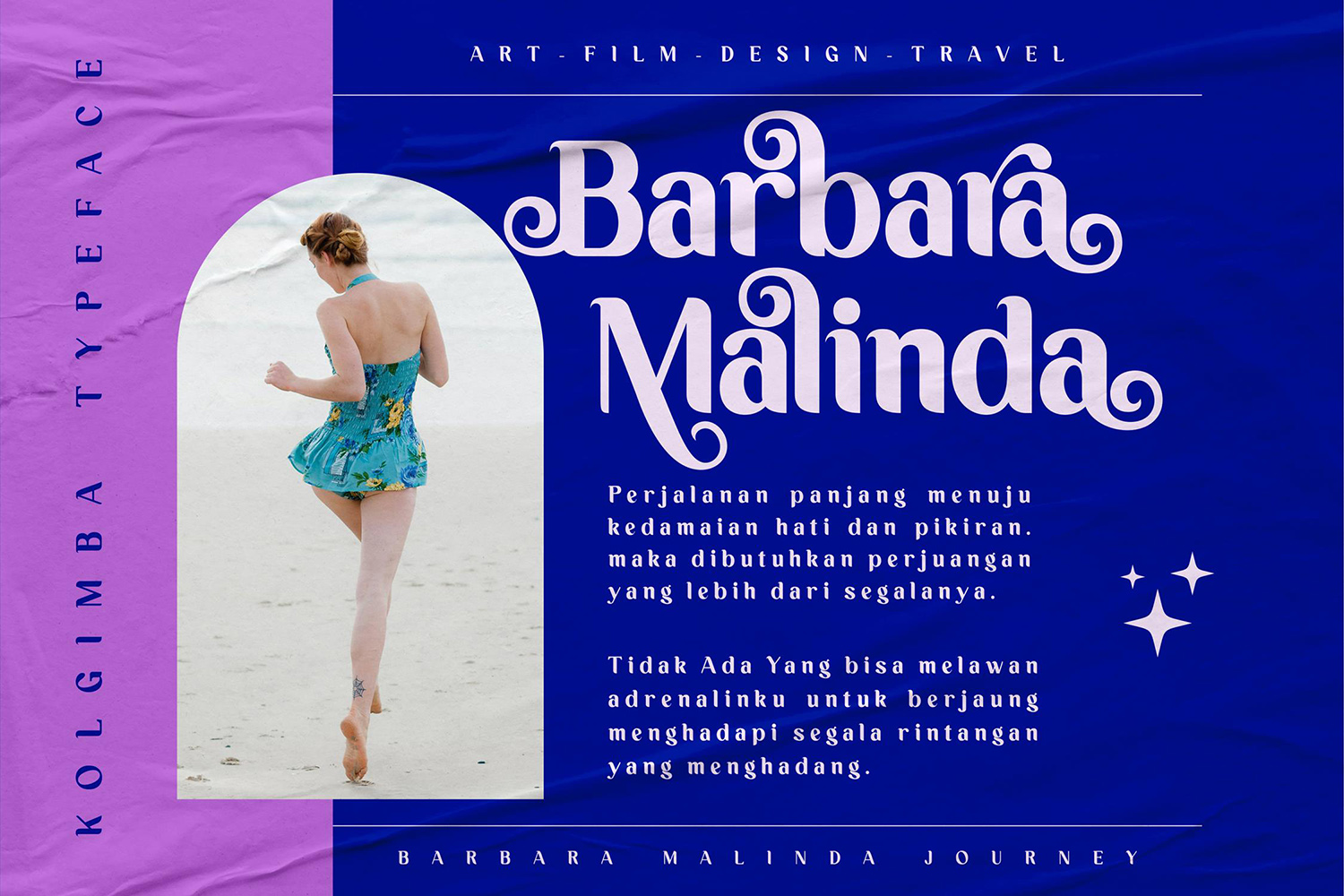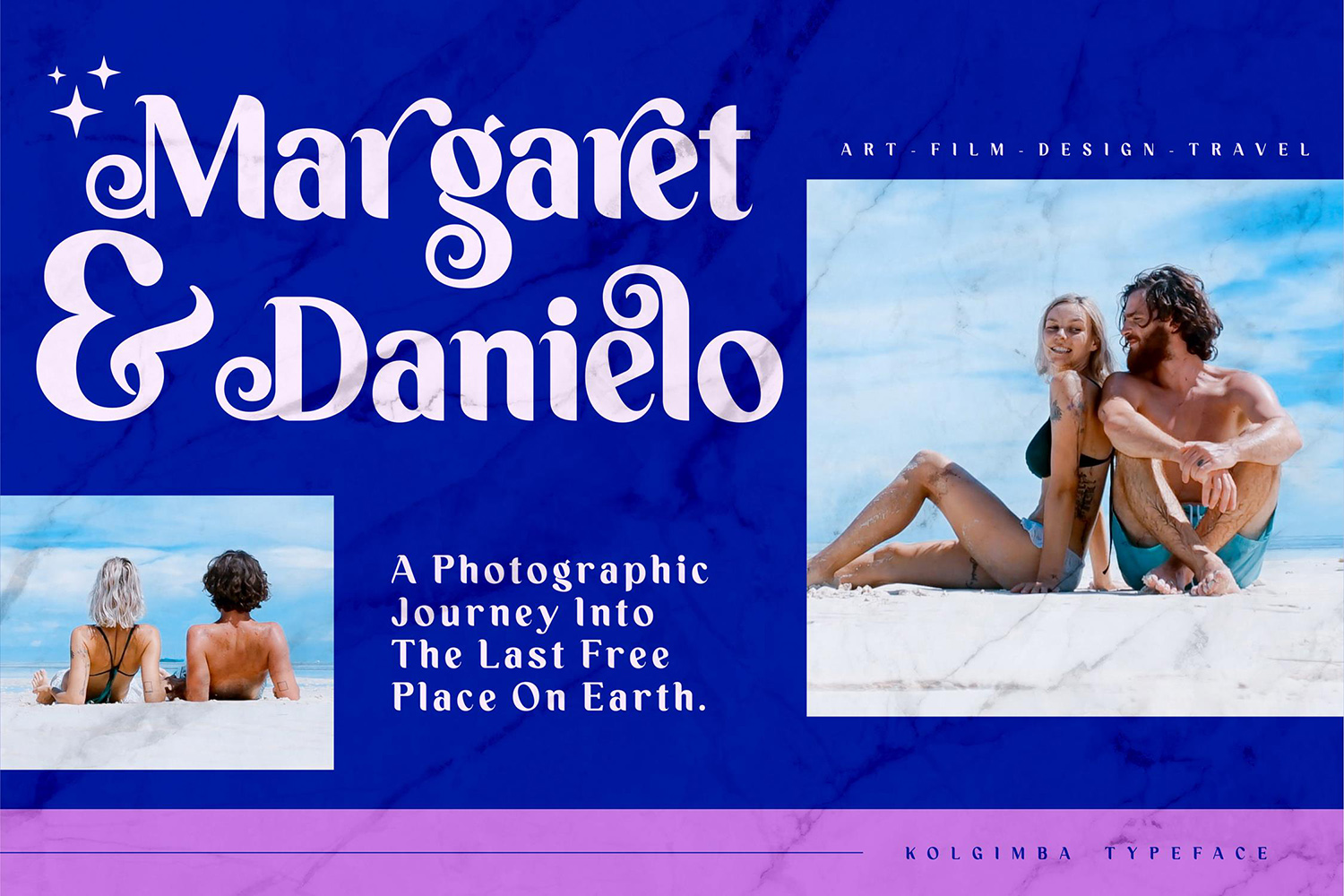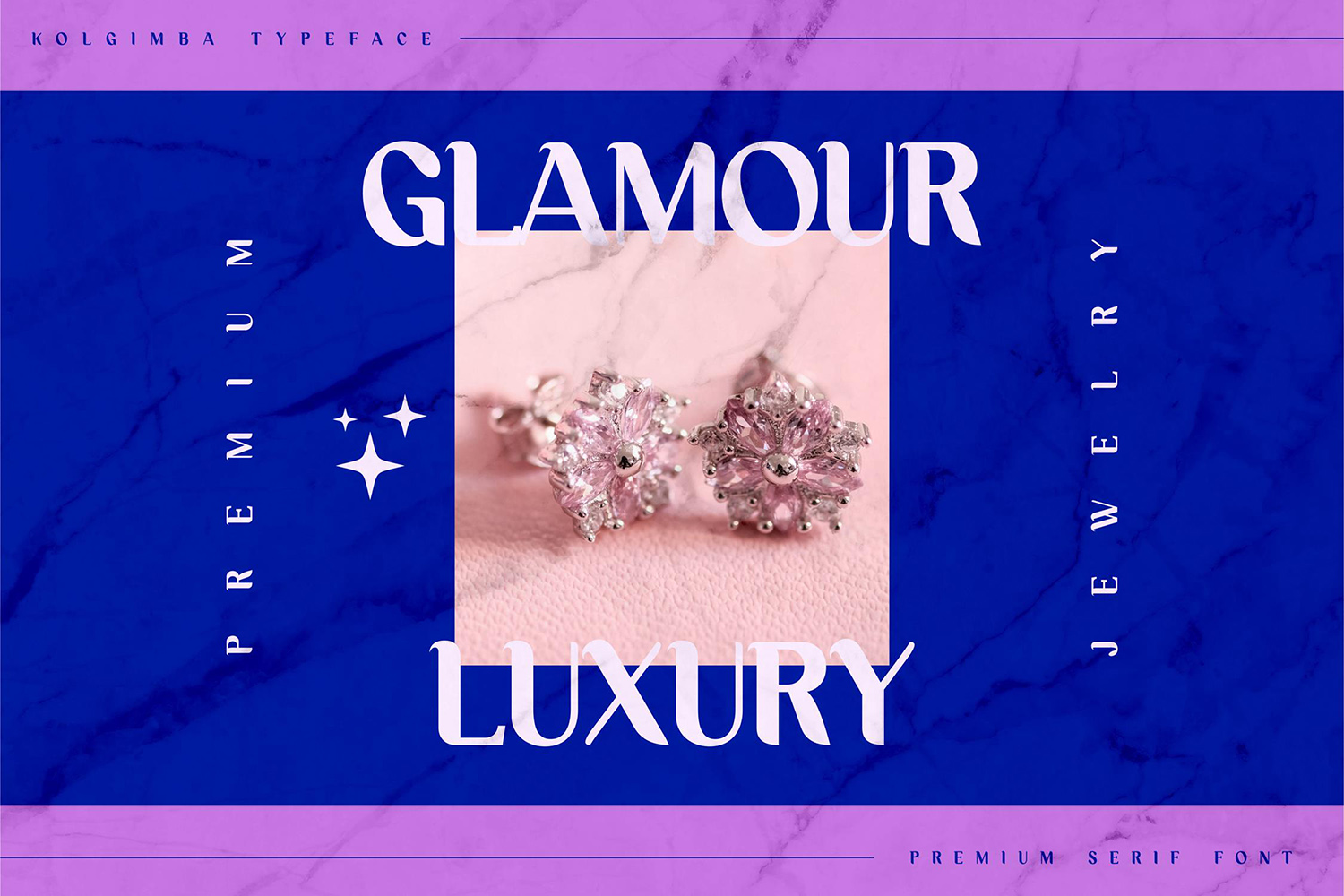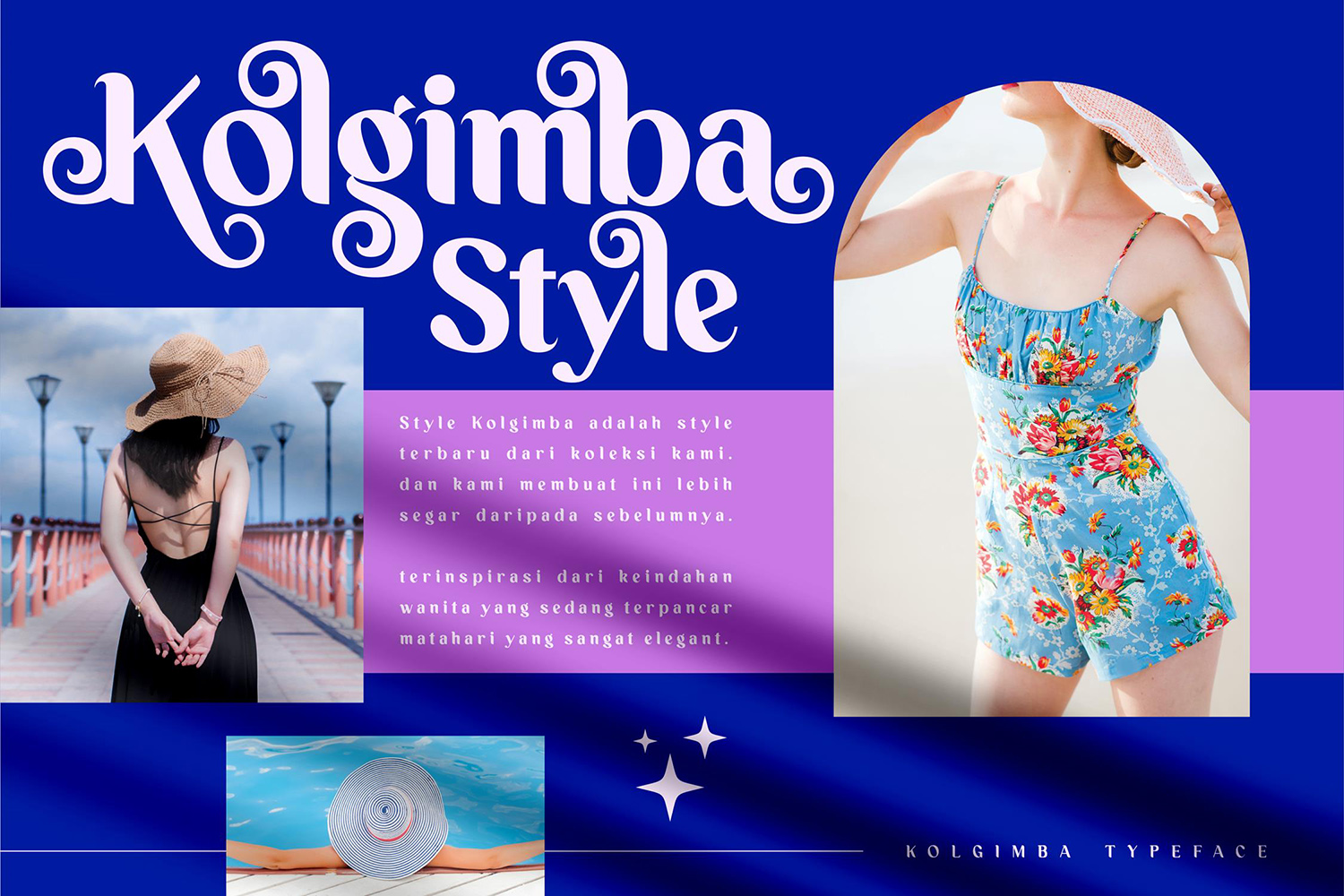
Kolgimba Free Font
Kolgimba Free Font is a bold, stylish and thick lettered serif font. This free typeface was designed by a talented Storytype Studio. If you like it don’t forget to check out the full version.